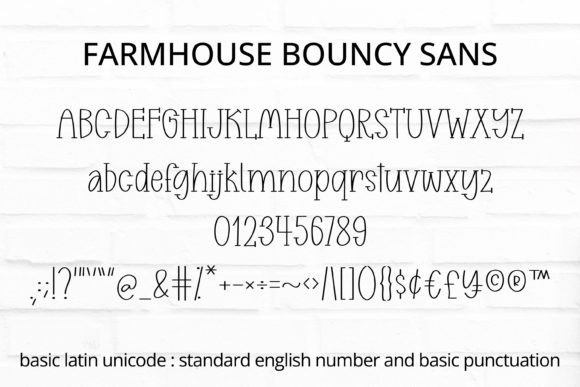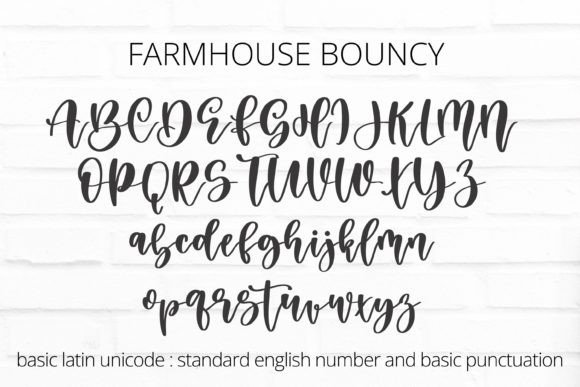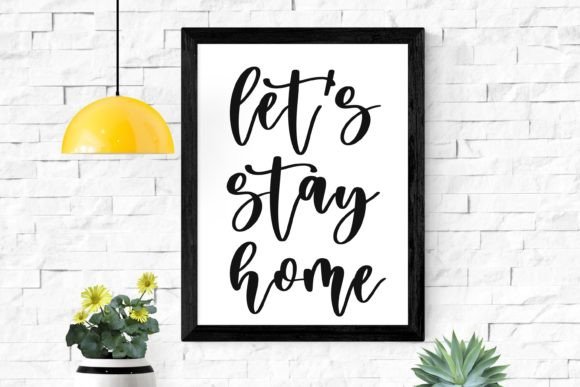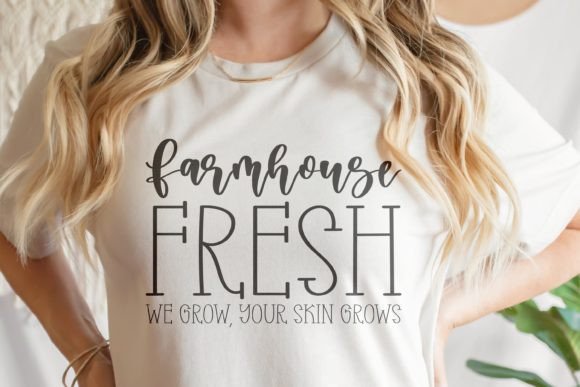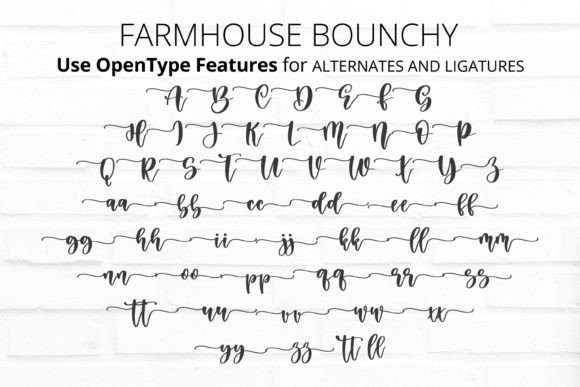
Introducing Farmhouse Bouncy Font: The Perfect Addition to Your Design Arsenal
Are you a designer or crafter looking for a unique and charming font to elevate your creative projects? Look no further than Farmhouse Bouncy Font, a duo-styled handwritten font that is sure to turn heads. With its delicate and charming feel, Farmhouse Bouncy is the perfect addition to your design arsenal, and we’re excited to dive into its features and uses in this article.
What is Farmhouse Bouncy Font?
Farmhouse Bouncy Font is a duo-styled handwritten font that is designed to bring a touch of whimsy and charm to your designs. Its unique dual style allows you to mix and match different letterforms to create a truly one-of-a-kind look. Whether you’re working on a Christmas card, wedding design, or local sign, Farmhouse Bouncy Font is sure to add a special touch to your project.
Key Features of Farmhouse Bouncy Font
- Duo-styled handwritten font: Farmhouse Bouncy Font features two distinct handwritten styles that can be used together to create a unique look.
- Charming and delicate feel: The font has a charming and delicate feel that is perfect for a variety of design projects.
- Highly versatile: Farmhouse Bouncy Font can be used for a wide range of projects, including Christmas cards, wedding designs, local signs, branding, logos, quotes, photography projects, birthday cards, and more.
Uses for Farmhouse Bouncy Font
So, what can you use Farmhouse Bouncy Font for? The possibilities are endless! Here are a few ideas to get you started:
- Christmas cards: Add a touch of festive cheer to your Christmas cards with Farmhouse Bouncy Font.
- Wedding designs: Use Farmhouse Bouncy Font to create beautiful wedding invitations, signs, and decorations.
- Local signs: Add a personal touch to your local signs with Farmhouse Bouncy Font.
- Branding and logos: Use Farmhouse Bouncy Font to create unique and memorable branding and logos.
- Quotes and typography: Create stunning quotes and typography with Farmhouse Bouncy Font.
- Photography projects: Add a touch of elegance to your photography projects with Farmhouse Bouncy Font.
- Birthday cards: Create personalized and special birthday cards with Farmhouse Bouncy Font.
Why Choose Farmhouse Bouncy Font?
So, why should you choose Farmhouse Bouncy Font for your design projects? Here are a few reasons:
- Unique and charming: Farmhouse Bouncy Font is a unique and charming font that will add a special touch to your designs.
- Highly versatile: The font is highly versatile and can be used for a wide range of projects.
Tips for Using Farmhouse Bouncy Font
Here are a few tips for using Farmhouse Bouncy Font:
- Experiment with different styles: Don’t be afraid to experiment with different styles and combinations of letterforms.
- Use it with other fonts: Farmhouse Bouncy Font pairs well with other fonts, so don’t be afraid to use it with other fonts to create a unique look.
- Pay attention to spacing: Pay attention to the spacing between letters and words to ensure that your design looks clean and professional.
In conclusion, Farmhouse Bouncy Font is a unique and charming font that is sure to elevate your design projects. With its delicate and charming feel, highly versatile design, and ease of use, Farmhouse Bouncy Font is the perfect addition to your design arsenal. Whether you’re a designer or crafter, Farmhouse Bouncy Font is a must-have font that will help you create stunning designs that stand out from the crowd.